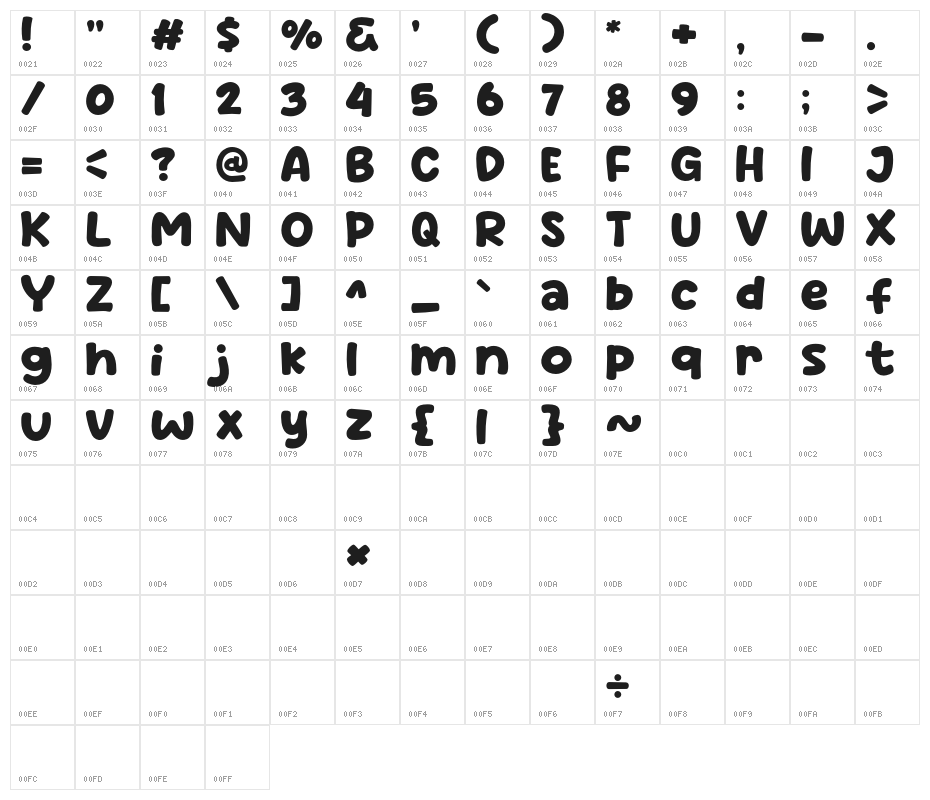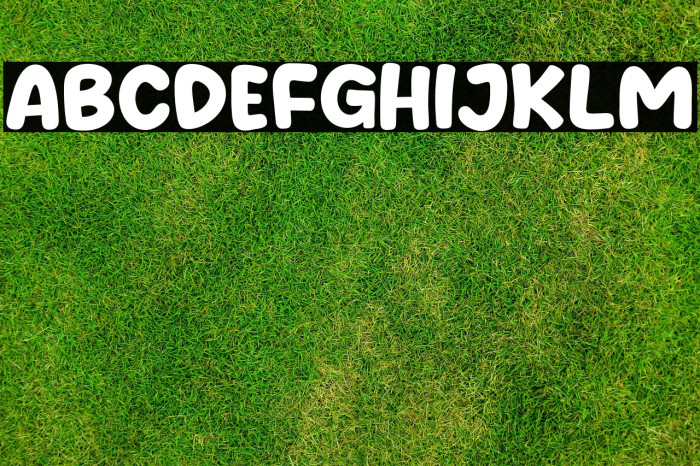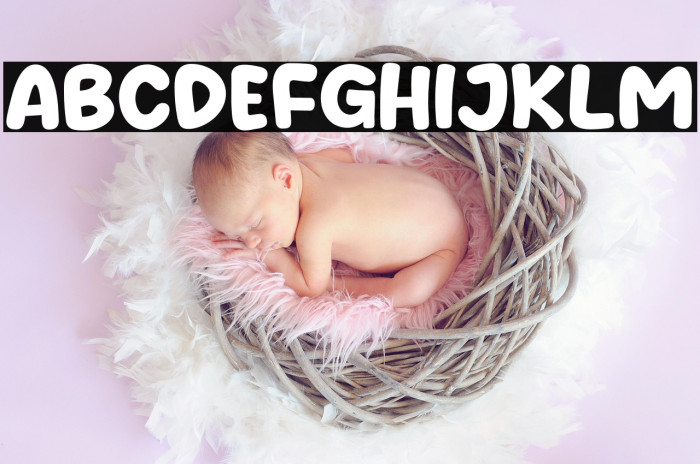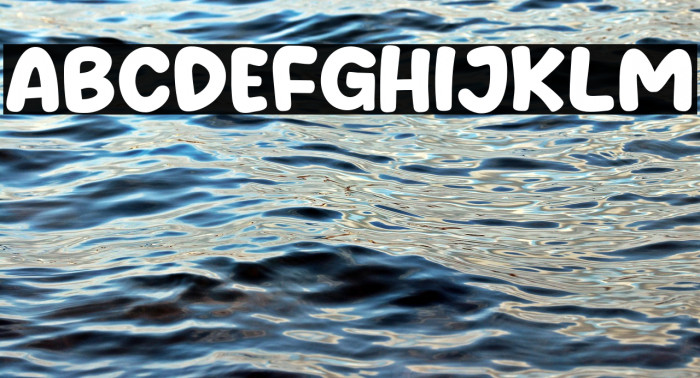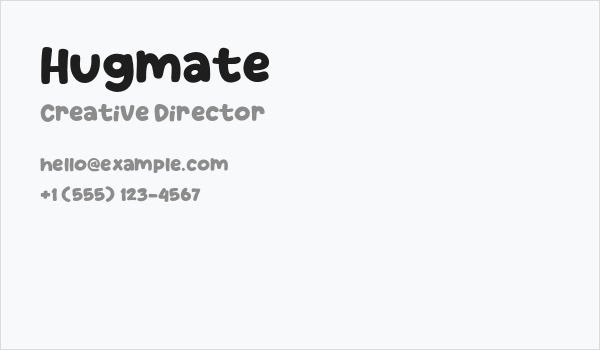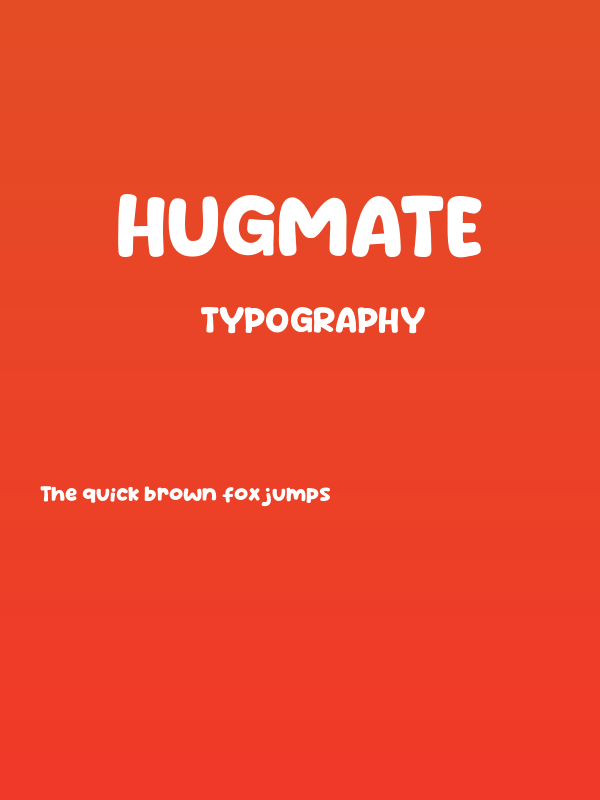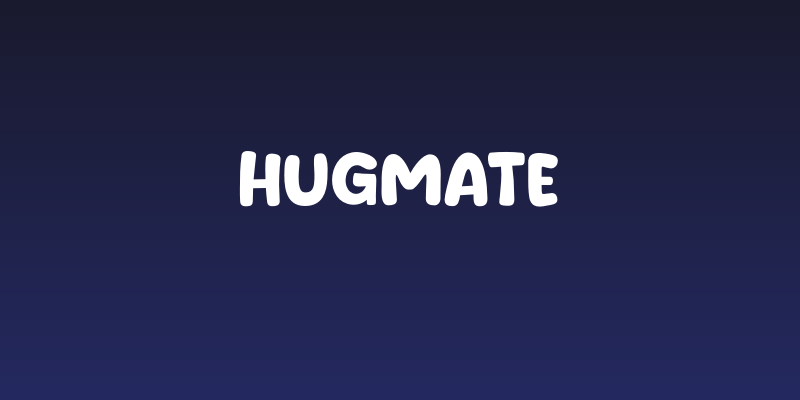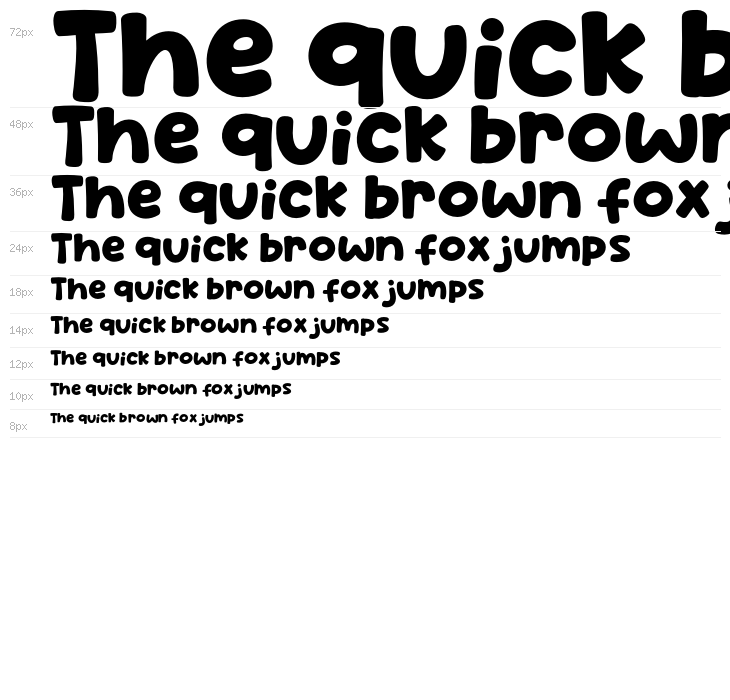
Hugmate Font
Hugmate Description
This playful and bold font features rounded, bubbly characters that exude a sense of fun and approachability. The letters are thick and have a consistent weight, giving them a strong presence on the page. The rounded edges and lack of sharp angles contribute to a friendly and informal appearance, making it ideal for projects that aim to convey warmth and creativity. The font includes a full set of uppercase and lowercase letters, numbers, and a variety of special characters, ensuring versatility in its application. Its unique style makes it stand out, perfect for designs that require a touch of whimsy.
| Overall Style | Playful |
| Use Case | Logos, Headlines, Posters |
| Proposed Projects | Ideal for children's books, playful branding, greeting cards, and creative posters. |